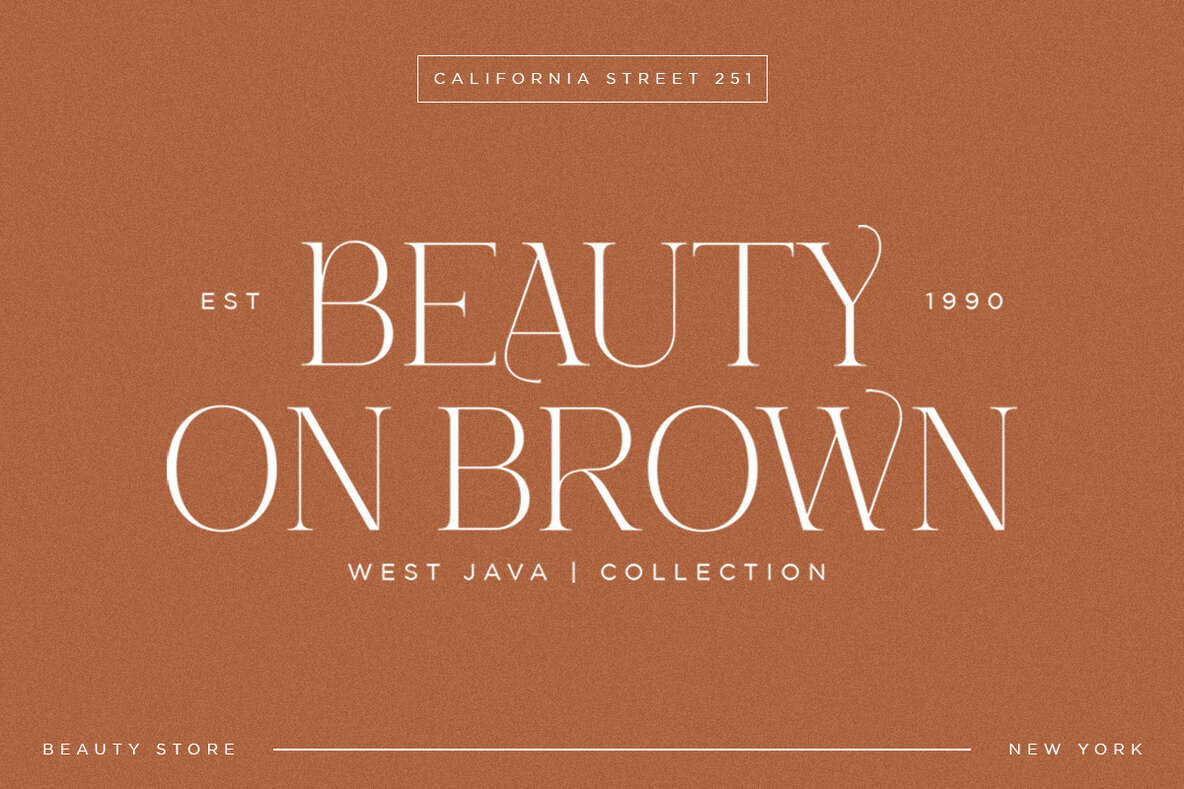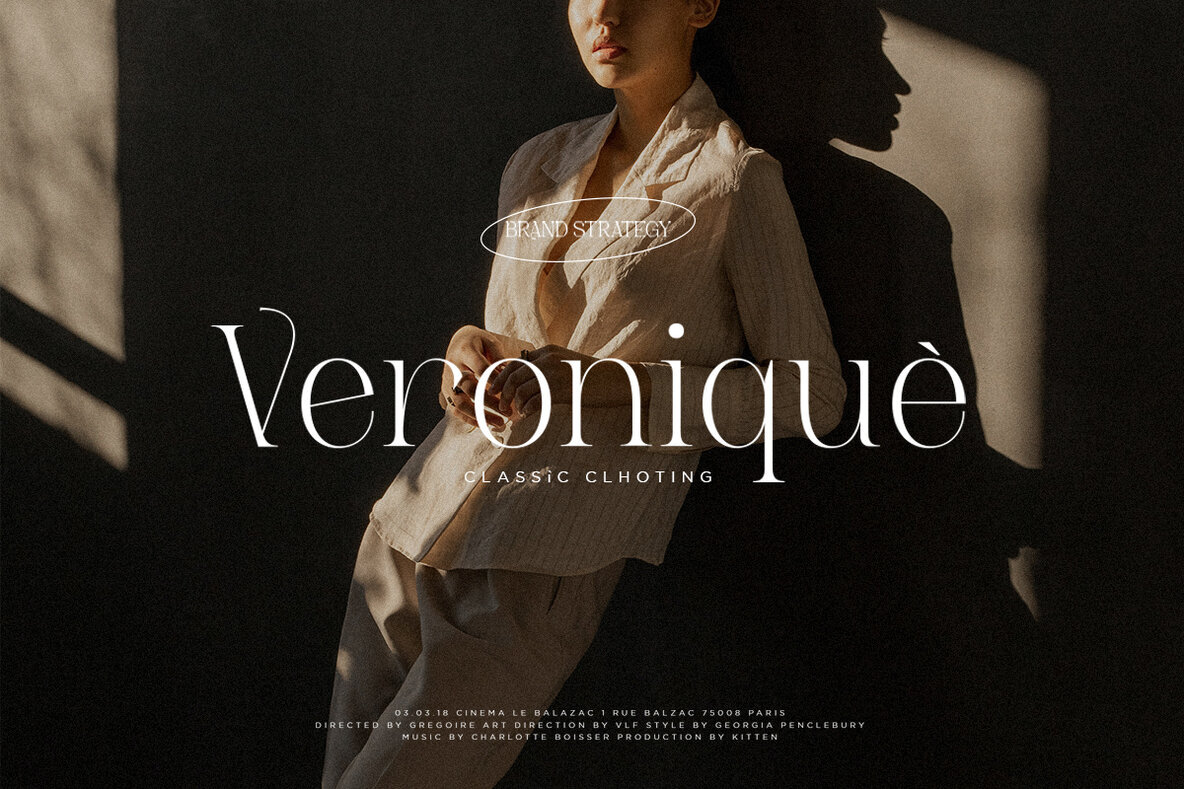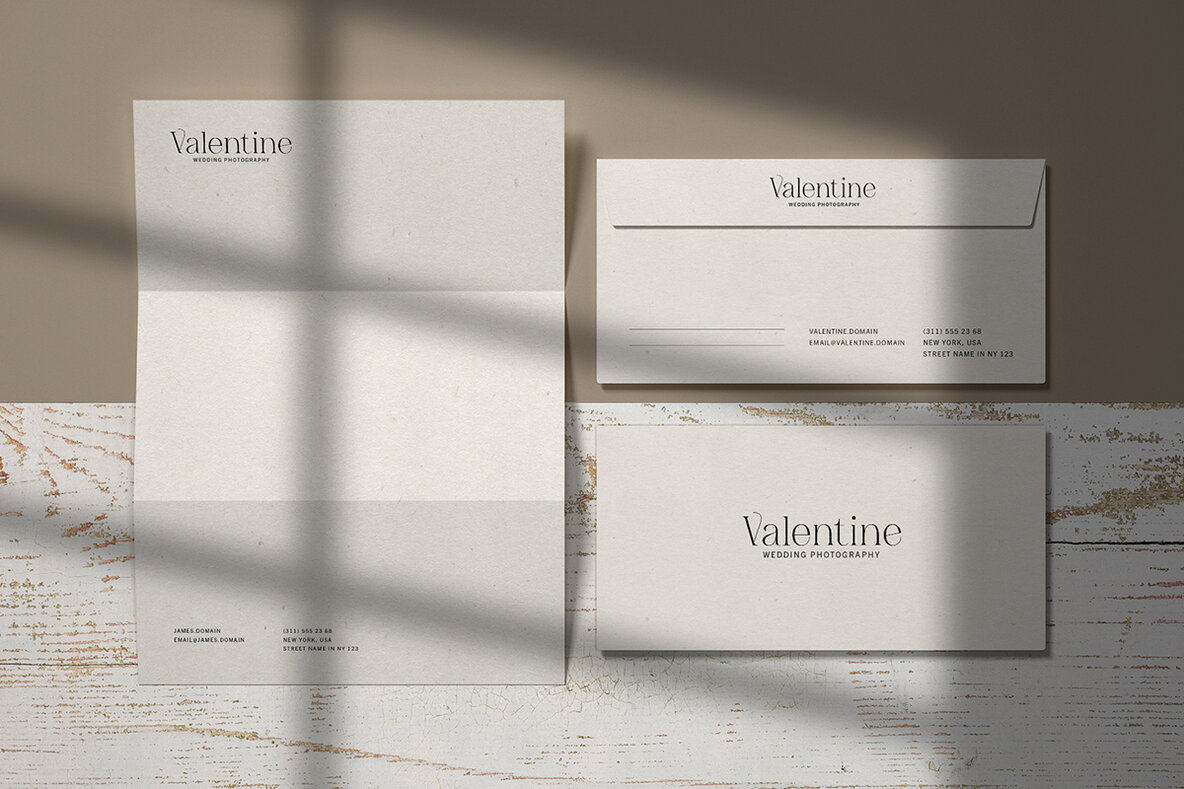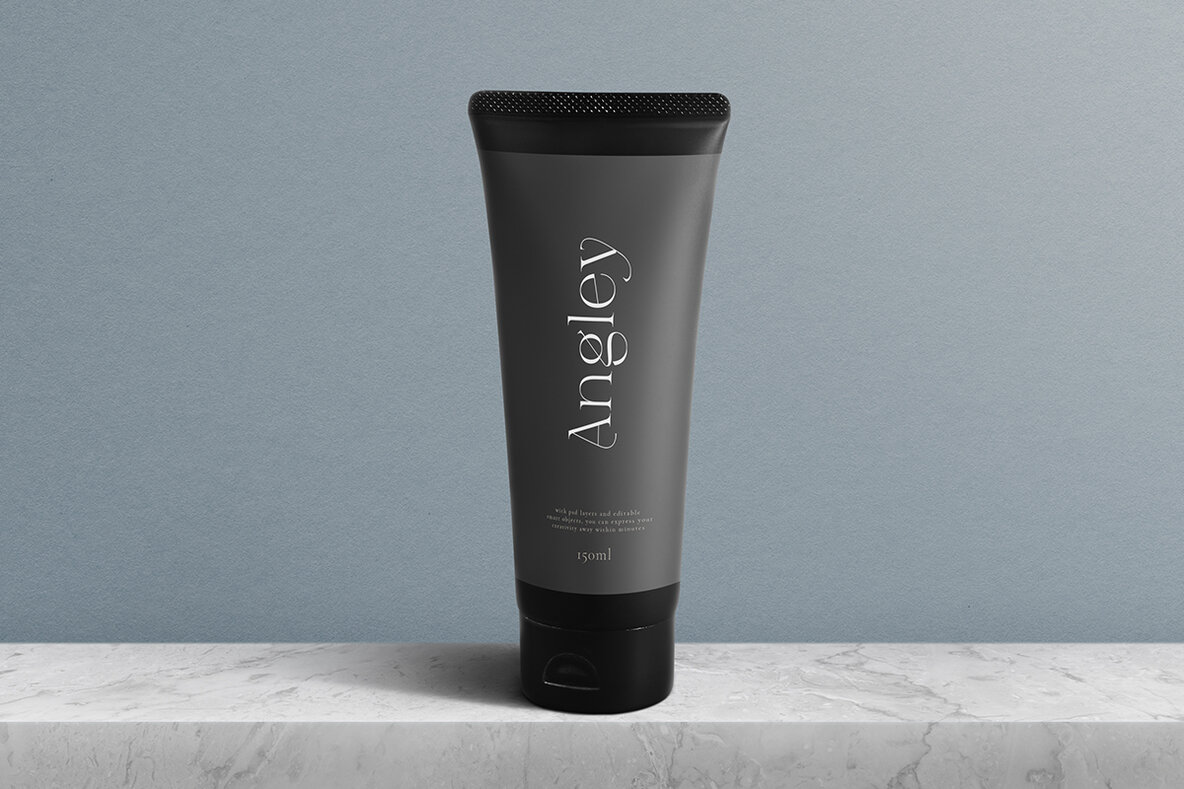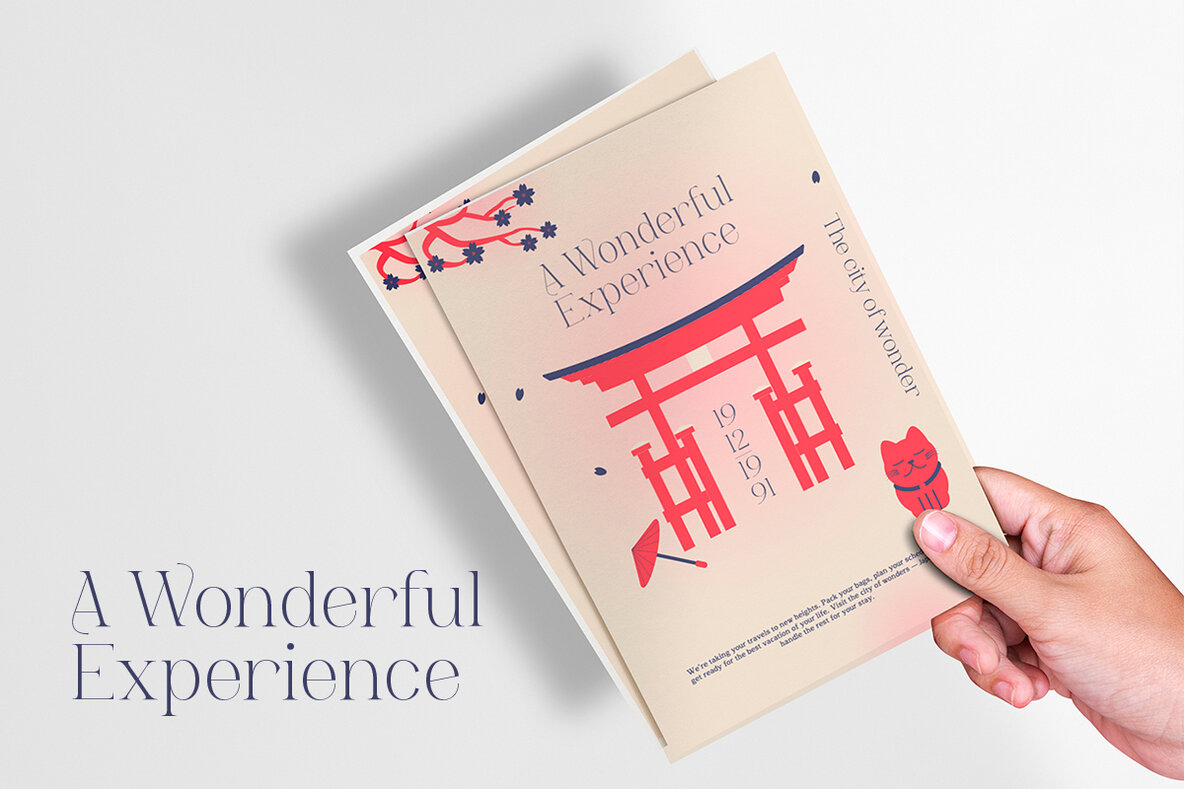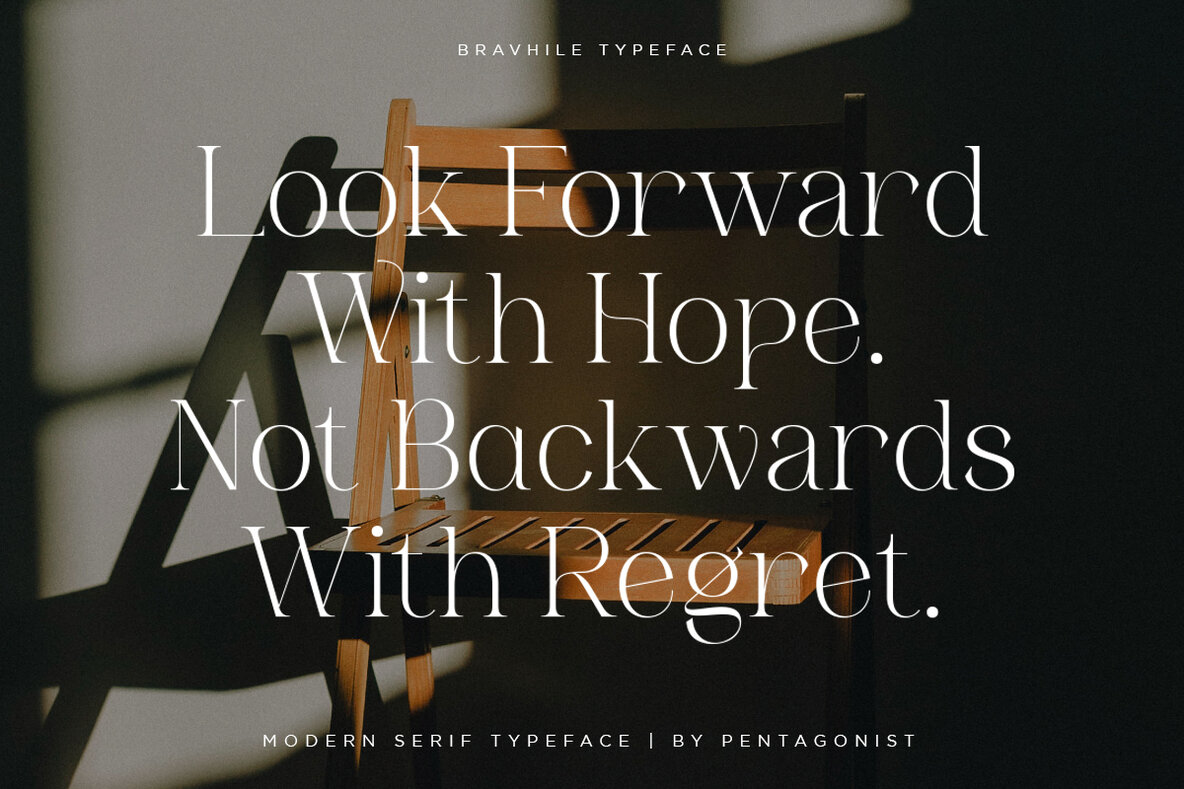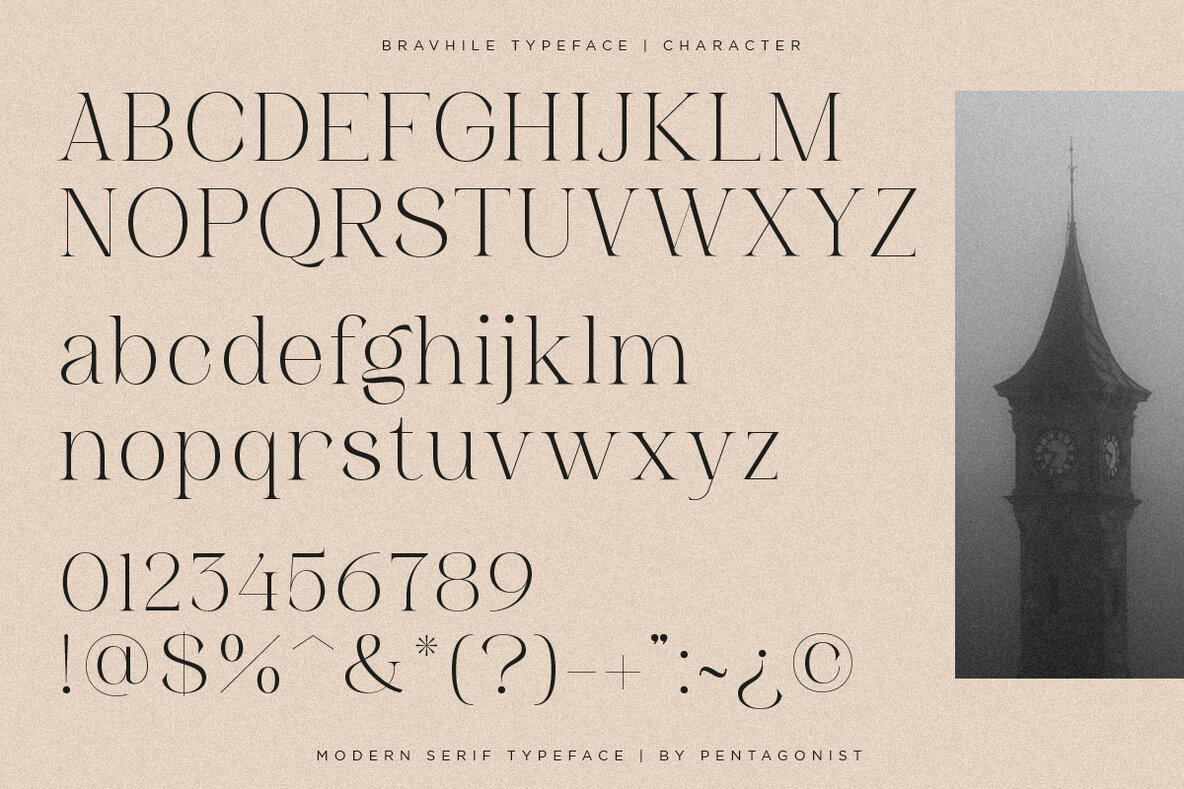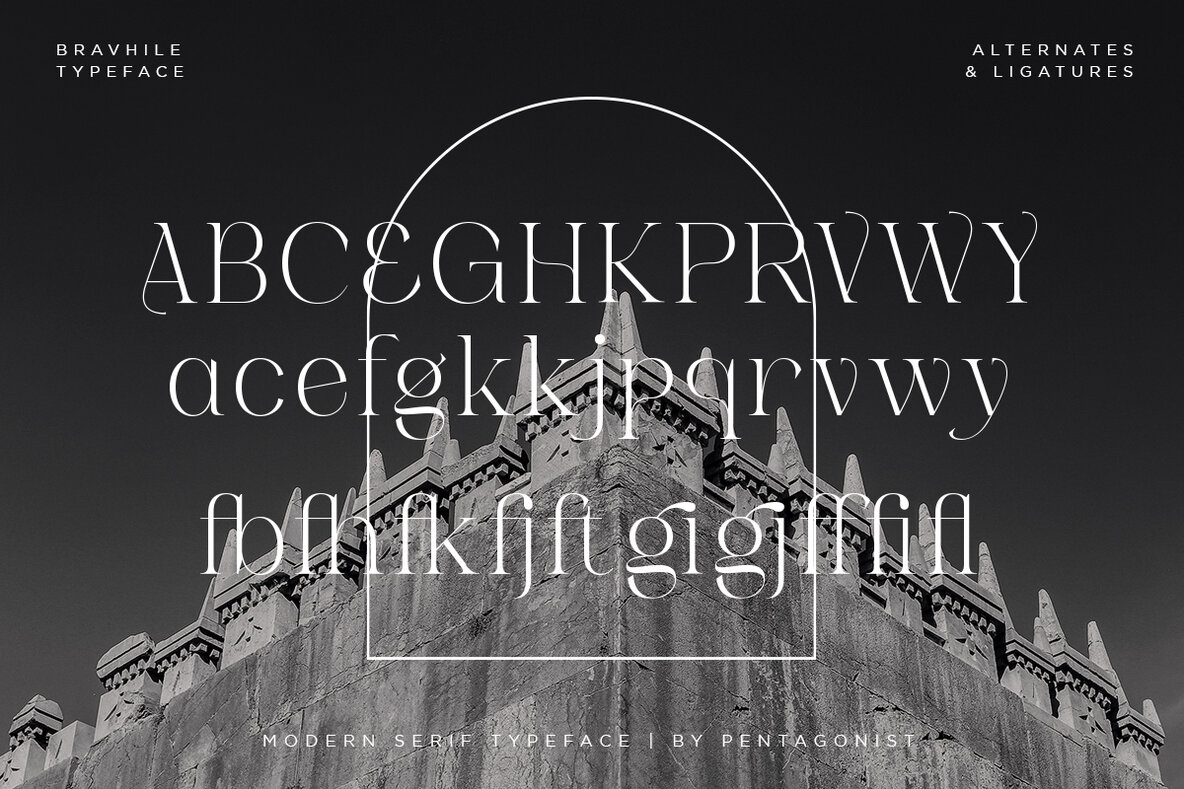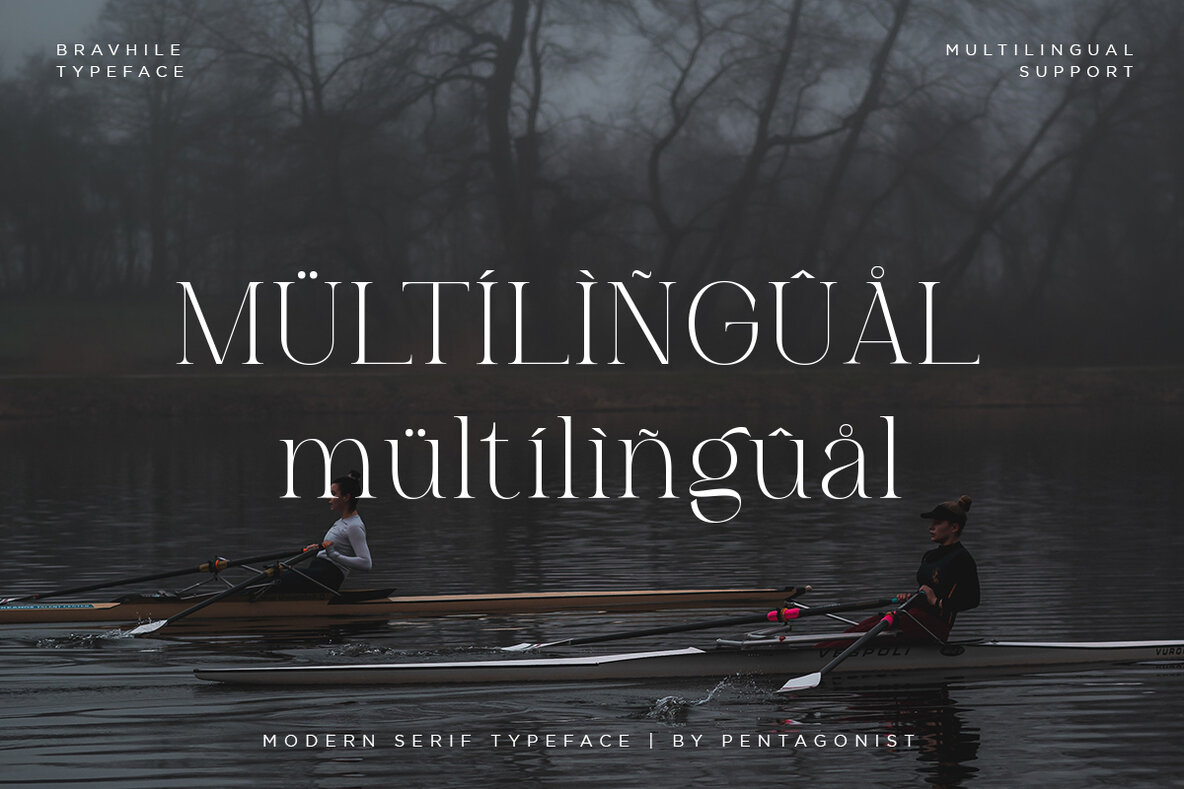
Bravhile Font
Bravhile Regular
Bravhile is a modern serif typeface that is inspired by stylish and elegant design. This font is perfect for a variety of design projects, including branding and logo design, editorial layouts, book covers, packaging, web design, and much more.
With its sleek and sophisticated style, Bravhile is sure to elevate your designs to the next level. Its clean lines and classic look make it a versatile choice for a wide range of projects, while its modern twist gives it a contemporary edge.